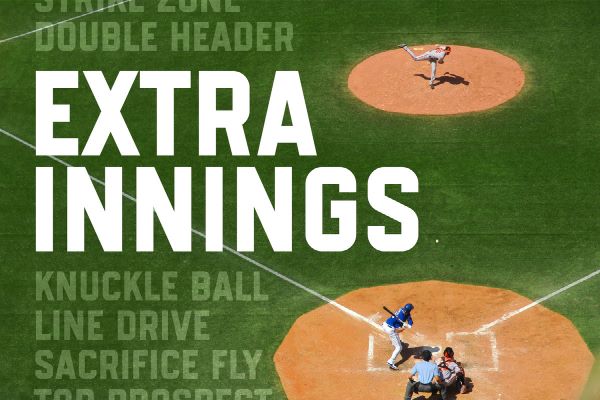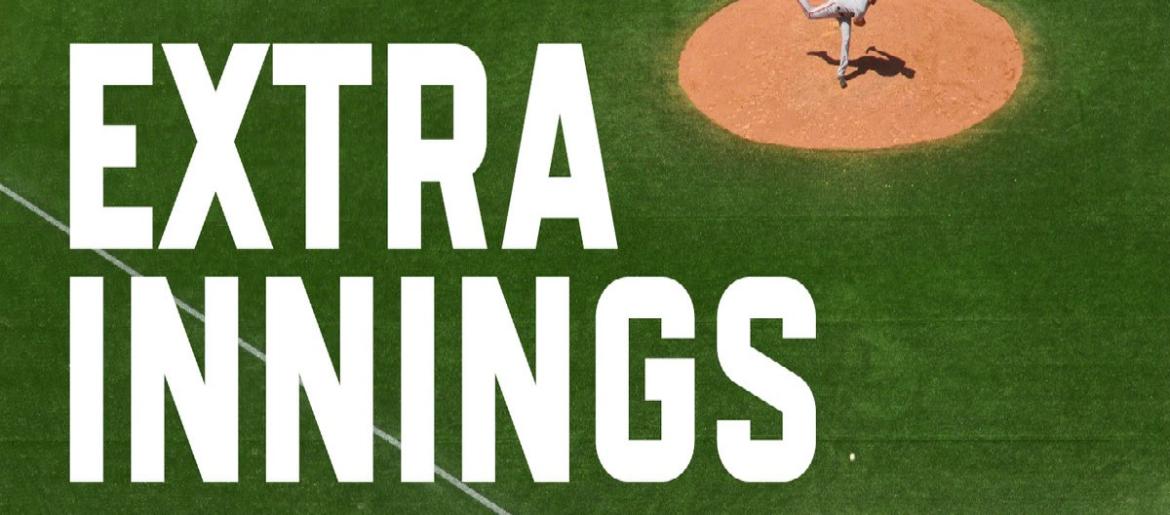
Extra Innings Font
Extra Innings by Edward Batkins is a sporty display typeface built with energy, attitude, and a clear love of the game. Its letterforms carry the bold, graphic confidence of classic sports lettering — evocative of stadium scoreboards, team jerseys, and championship-era print ephemera — while feeling fresh and contemporary in its execution. Whether applied to sports branding, event posters, apparel graphics, or any project that needs to project team spirit and competitive edge, Extra Innings delivers exactly that. Free for personal and commercial use.